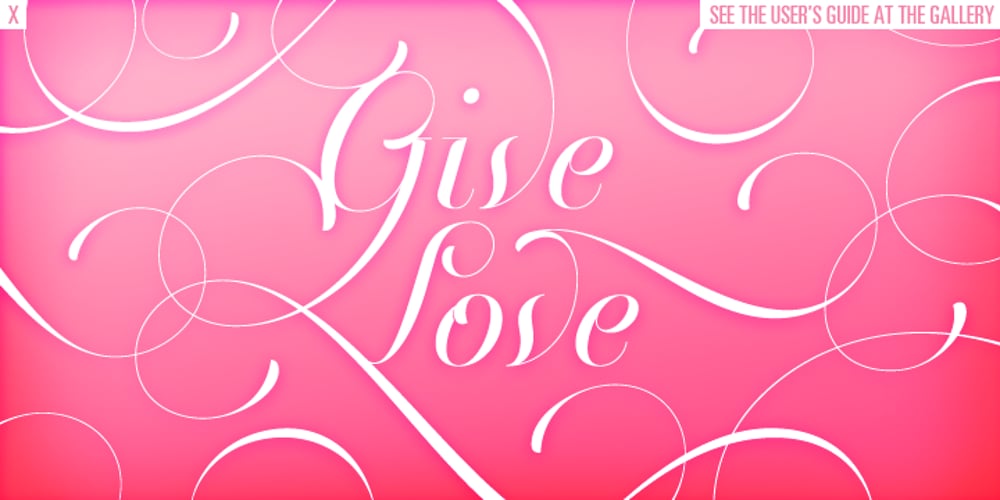
Breathe Font Family was designed by Maximiliano R. Sproviero and published by Sproviero Type. Breathe contains 2 styles and family package options. ATTENTION COSTUMERS! A new version of this font was released in 2019. Take a look: Breathe Neue Reaching a total of more than 1000 glyphs, Breathe Pro is Maximiliano R. Sproviero’s gift of the year. The aim of the designer was once more to give the user the chance to play and travel from very formal and conservative letterforms to the amazing world of swashes and flourishes. Possibilities of alternating and ligating characters in this font are absolutely fantastic. After his last creation, Parfait Script, Lián wanted to make a more universal font. Delighted by typographic works of Didot and his followers of the beginnings of 1800, Maximiliano R. Sproviero started what became another obsessive project, which is now named Breathe, “cuando las letras respiran…” what could be translated as “when letters breathe”, due to the feeling that you are reading letters that are alive. Breathe comes in two styles which have a significant difference as regards to the quantity of glyphs available inside. If you want to get the most complete style, with over 1000 glyphs, (including contextual alternates, stylistic alternates, swashes, terminal forms, titling alternates, historical forms, stylistic sets, standard ligatures, stylistic ligatures, decorative ligatures and frames) then your choice should be Breathe Pro. On the other hand, if you are interested in having a less decorative font with the nice touch of Lián’s style, then your choice should be Breathe Standard, a more limited version of Breathe, including terminal forms (leaves) and frames. With Breathe Pro you will surely have fun at the same time you are designing and that is not an unimportant thing. The world of type-designers is growing each year, and the features of Open-Type are letting them think their creations as if they were truly pieces of art. At least, Breathe Pro is inspired in the Art of our predecessors, those who with a pen loaded of ink would decorate each letter, each page in such a lovely way. Yes, -lovely- is the word. We would not have the amazing lettering artists, calligraphers, typographers of nowadays if that -love for letters- had not traveled from generation to generation. Breathe Pro is an example of this love. An example of what Maximiliano R. Sproviero feels about typography and letters. Pssst… Look for more images and the User’s Guide at the gallery section to see it in use! http://origin.myfonts.com/s/aw/original/89/0/46067.pdf